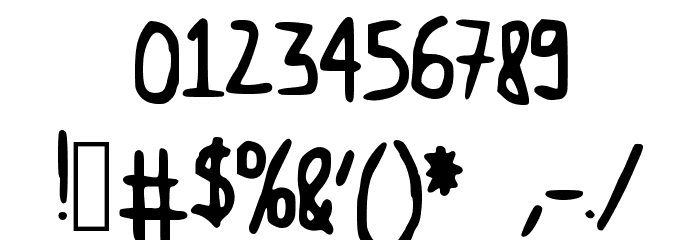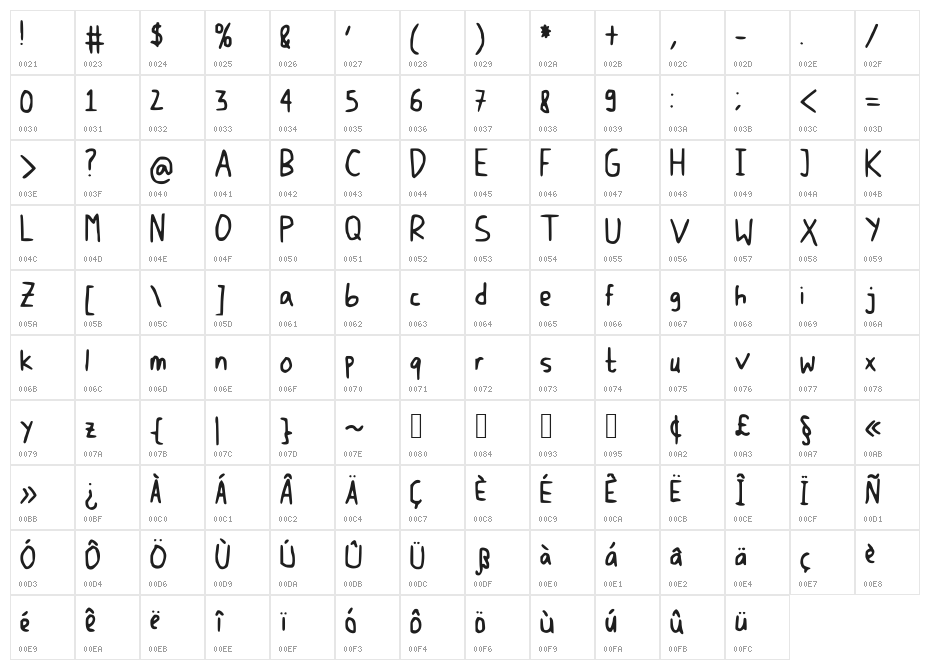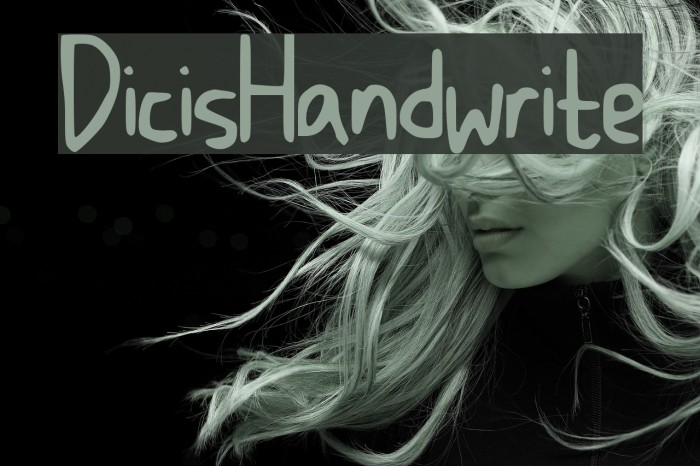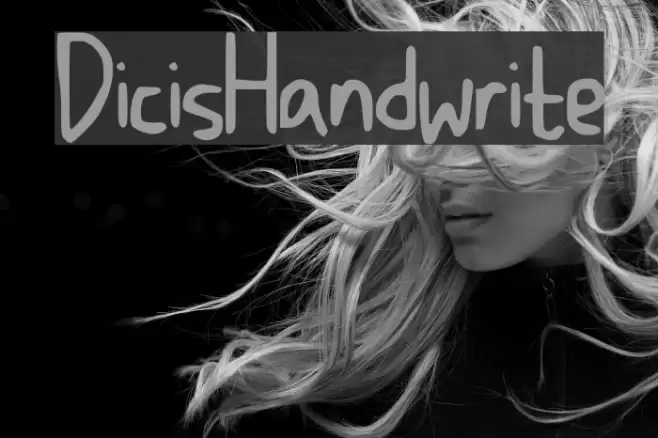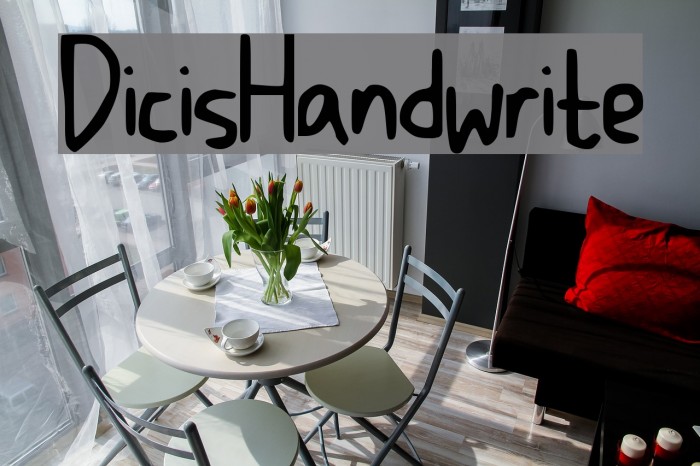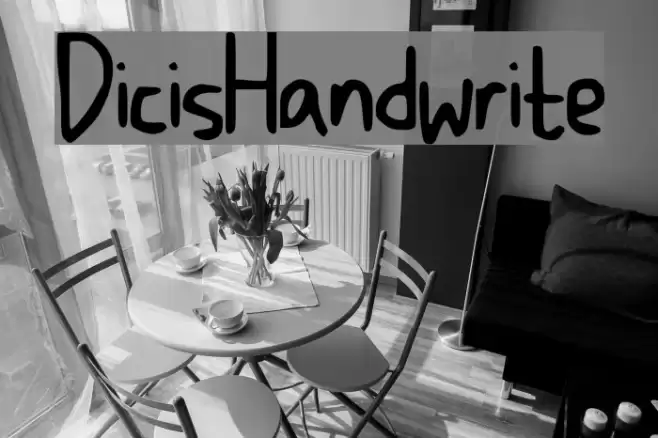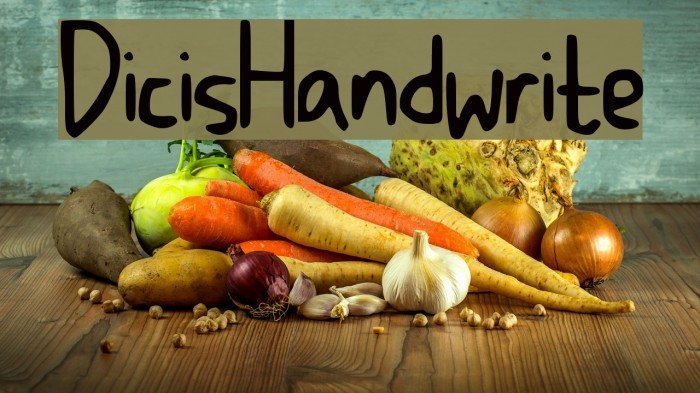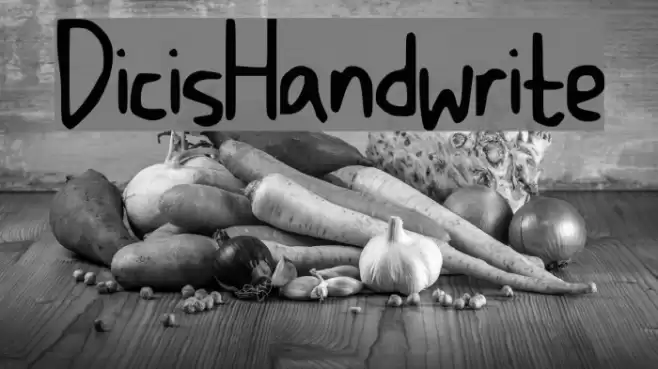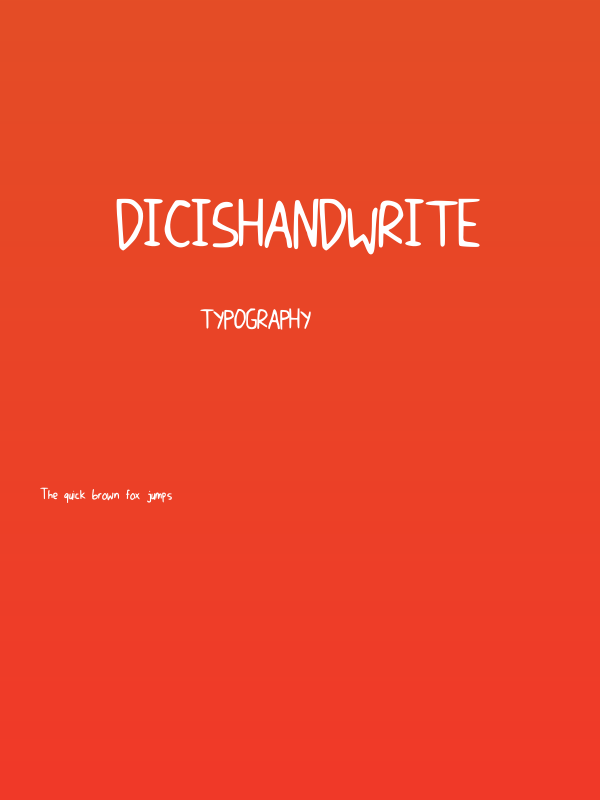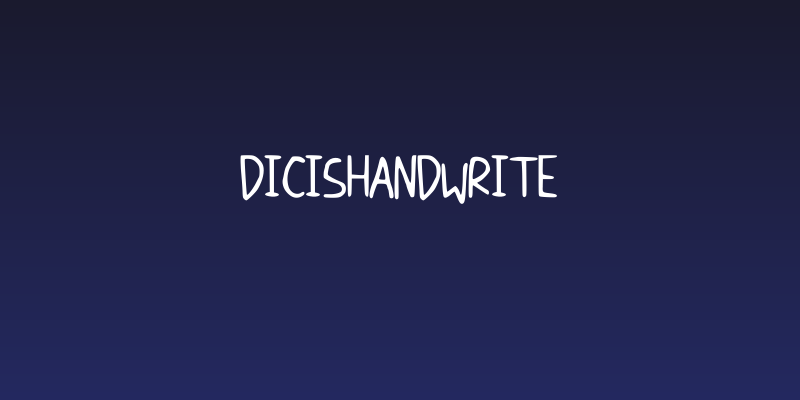
DicisHandwrite Font
DicisHandwrite Description
This font features a playful and casual handwritten style, characterized by its irregular and organic letterforms. The strokes are smooth and slightly uneven, giving it a natural and friendly appearance. The uppercase and lowercase letters maintain a consistent style, with a slight slant that adds to the informal feel. The numbers and special characters are designed to match the overall aesthetic, making it suitable for projects that require a personal touch. The font's unique charm lies in its ability to convey warmth and approachability, making it ideal for creative and informal applications.
| Proposed Projects | Ideal for greeting cards, invitations, personal blogs, and children's book illustrations. |